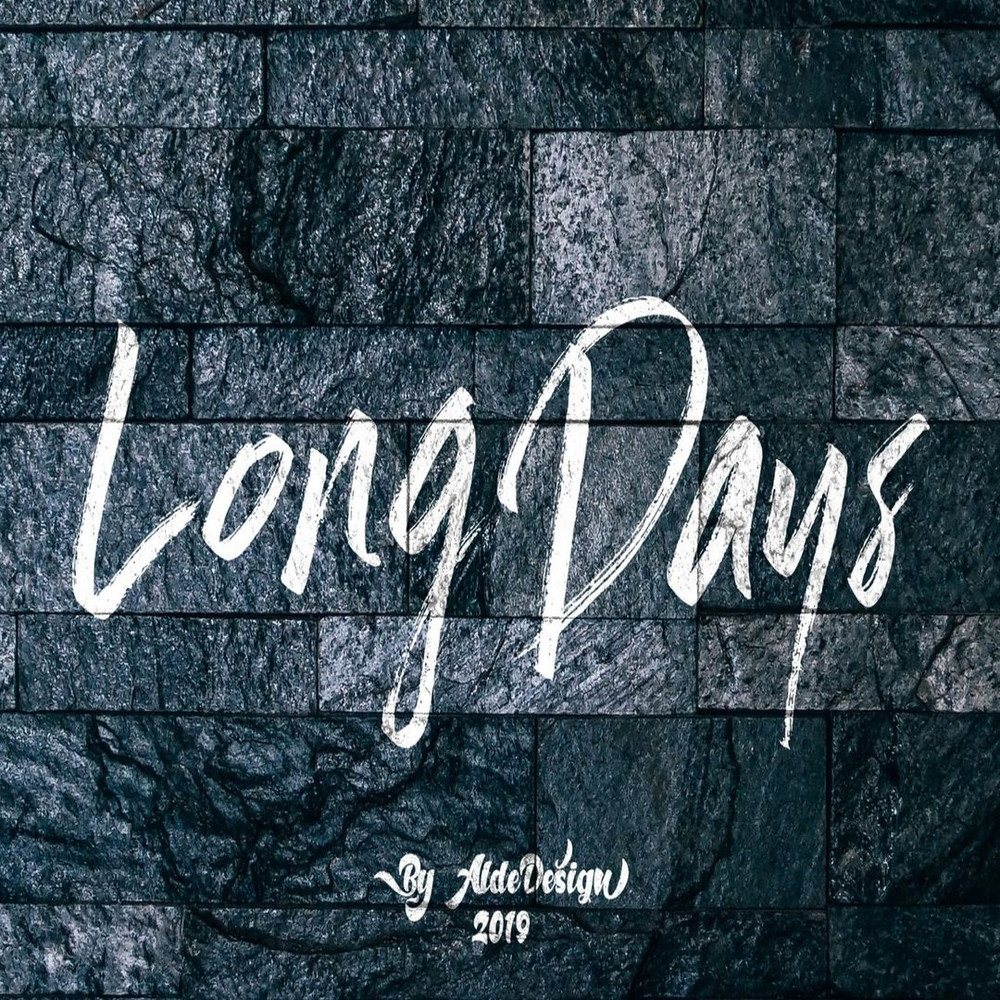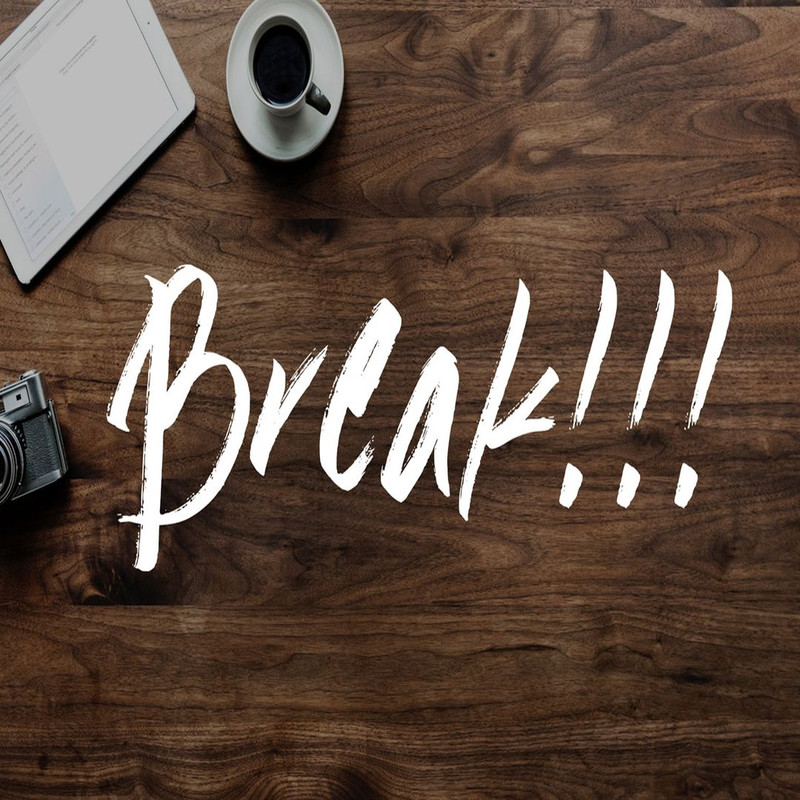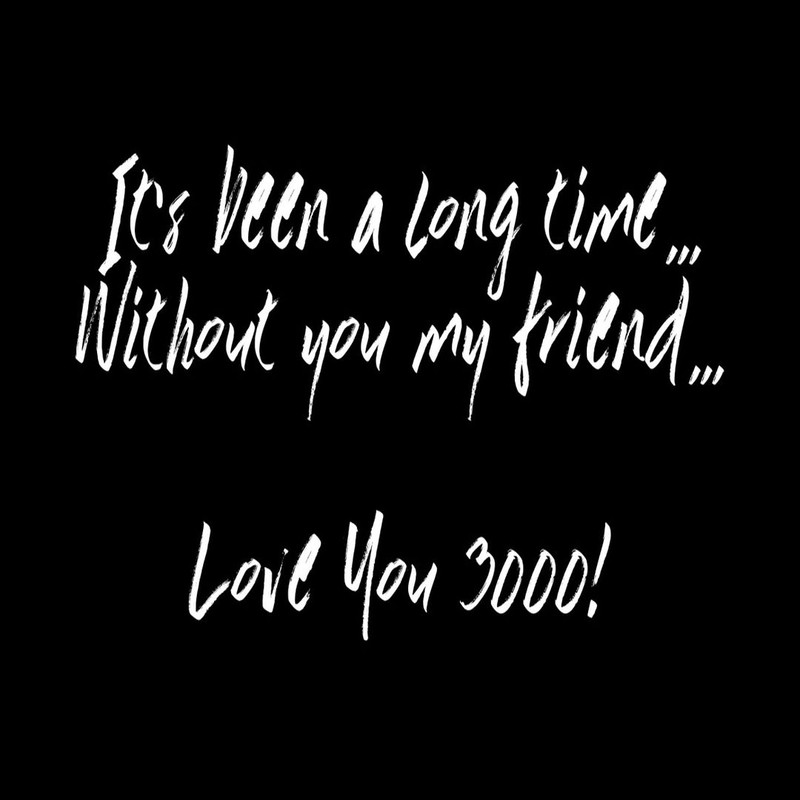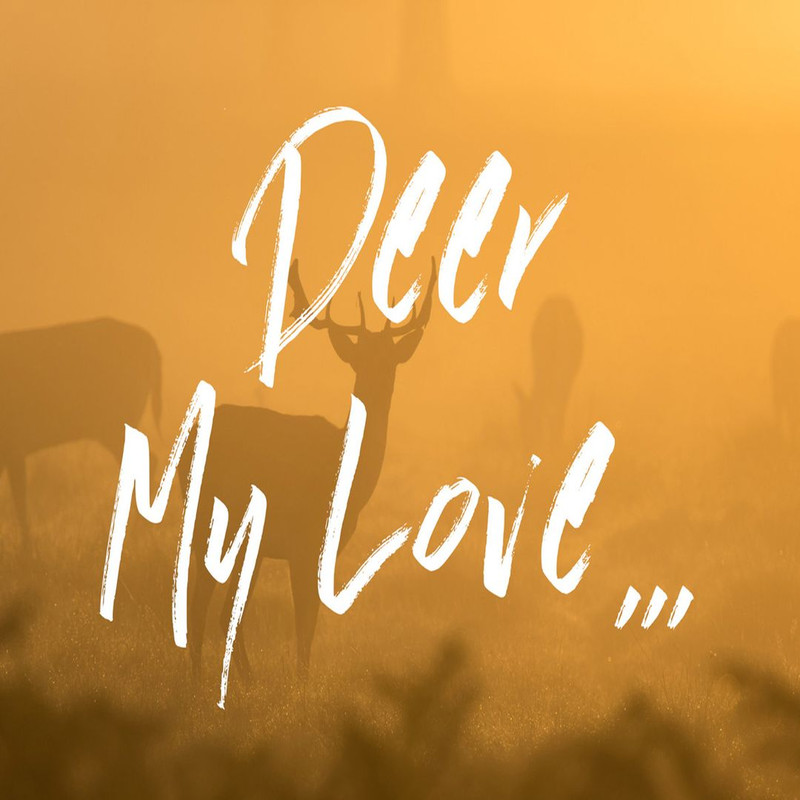
Long Days – Brush Script Font is quirky script made by depth love. Long Days is made with natural handwriting touch is suitable for you who needs a typeface for Headline, Apparel, Invitation, Branding, Wedding, Logo Design, Lettering, Logotype, Clothing, Poster, Magazine and other design project, t-shirt, letterhead, signage, lable, news, posters, badges etc.